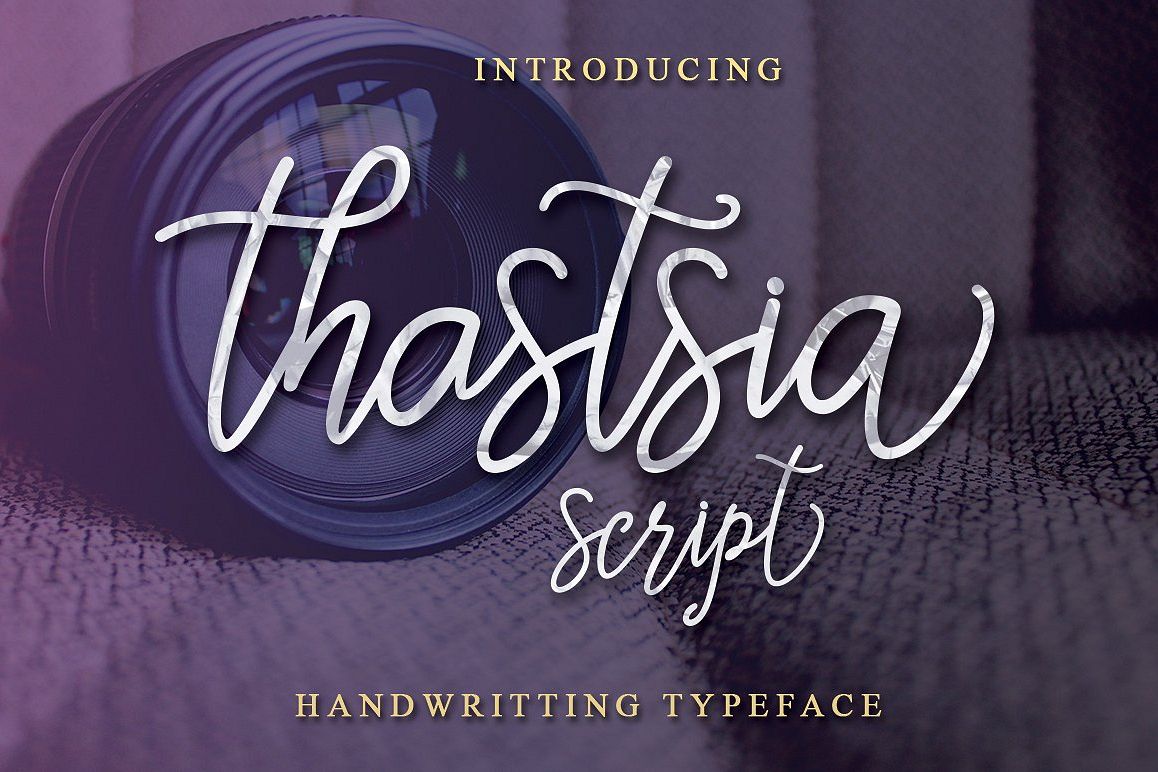
Thastsia Script
Introducing Thastsia script, an easy to use script font with a Monoline
style!
Handwritten and perfect for many projects, included are both OTF and TTF